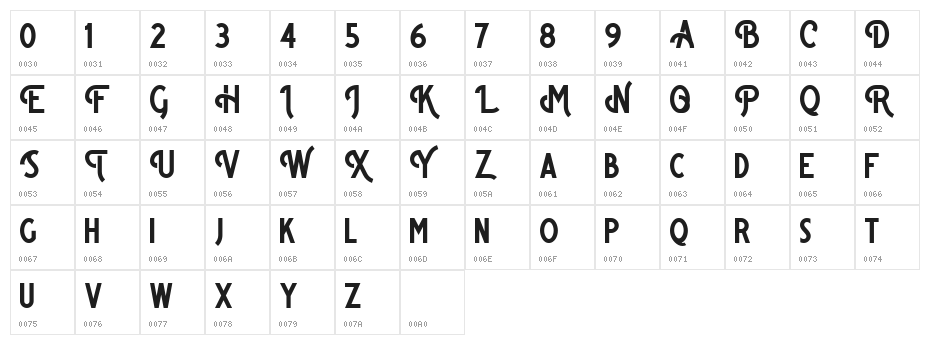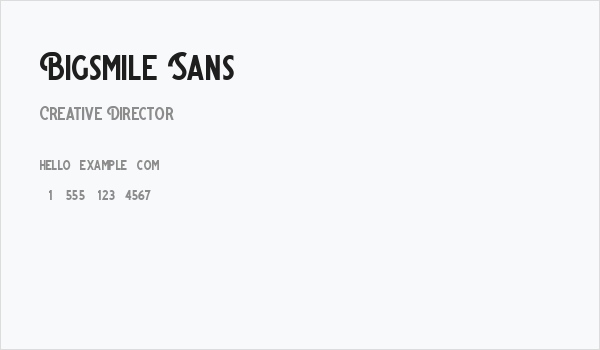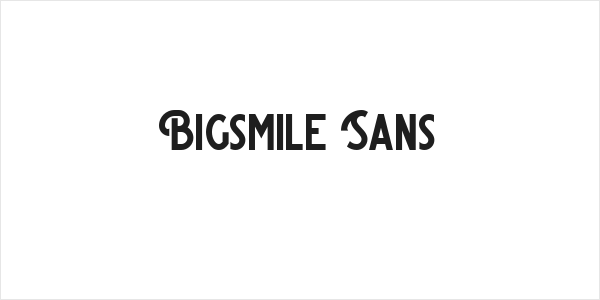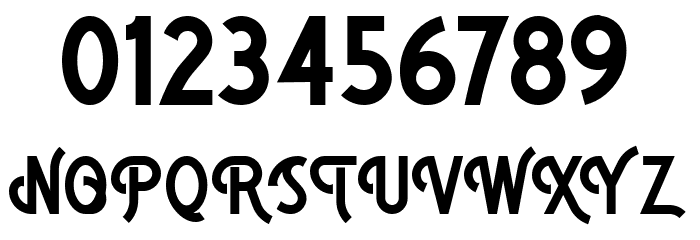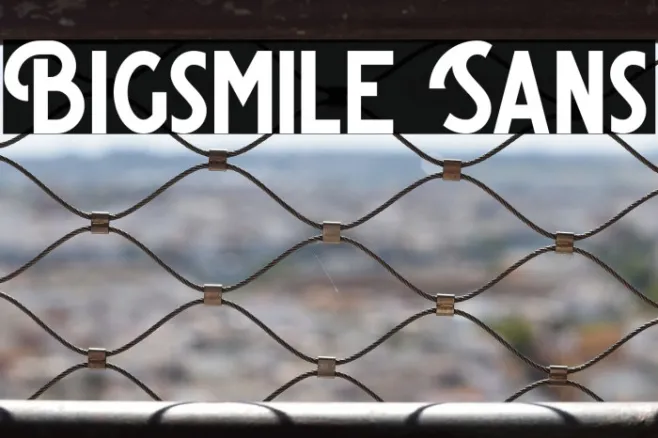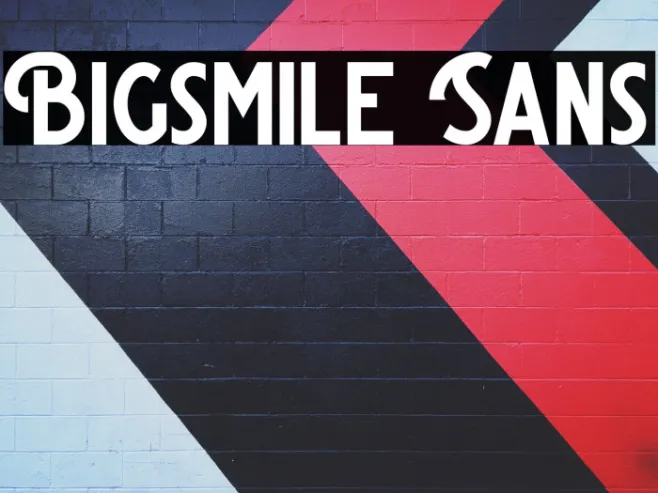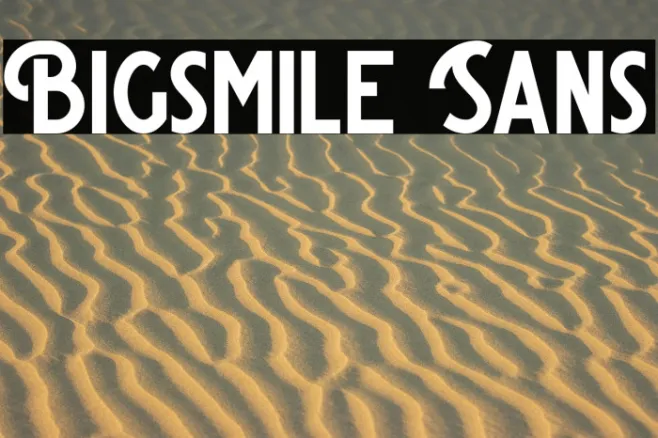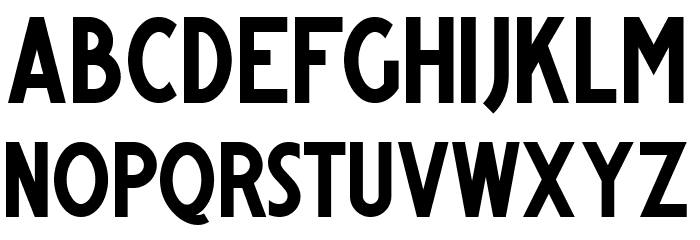
Bigsmile Sans Font
Bigsmile Sans Description
This font features a playful and bold design with a unique blend of decorative and sans-serif elements. The uppercase letters exhibit a whimsical style with curved and exaggerated strokes, giving them a lively appearance. The lowercase letters maintain a more traditional sans-serif look, providing a nice contrast. The numerals are bold and clear, ensuring readability. Special characters are creatively designed, adding to the font's overall playful aesthetic. This font is ideal for projects that require a fun and engaging visual impact.
| Overall Style | Playful, Decorative |
| Proposed Projects | Ideal for children's books, playful branding, posters, and creative advertising. |